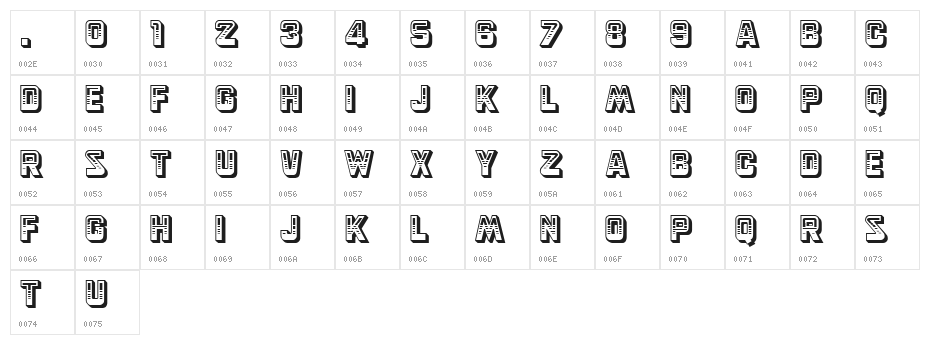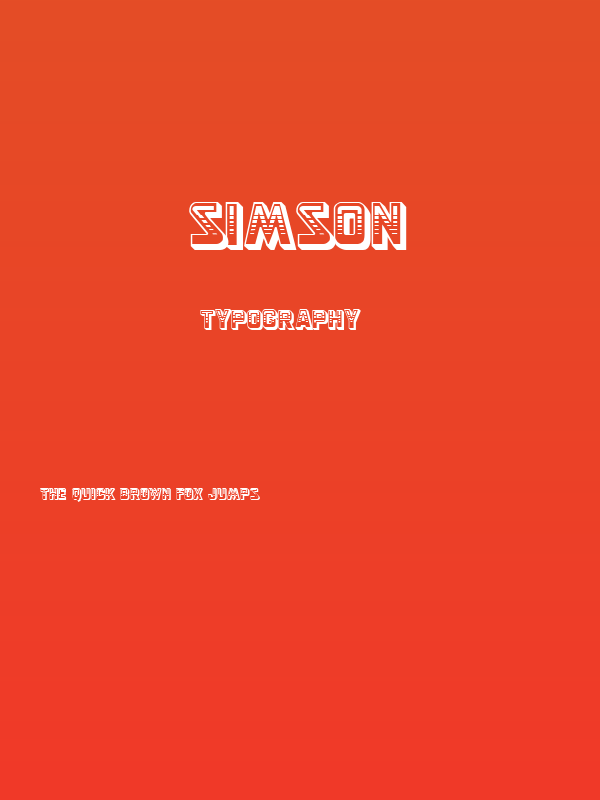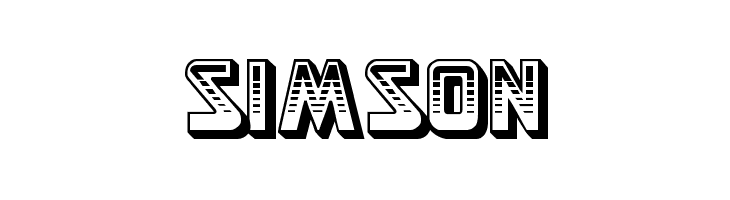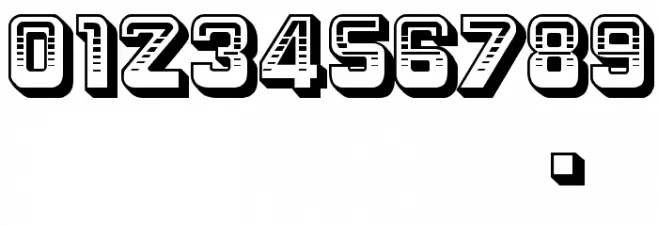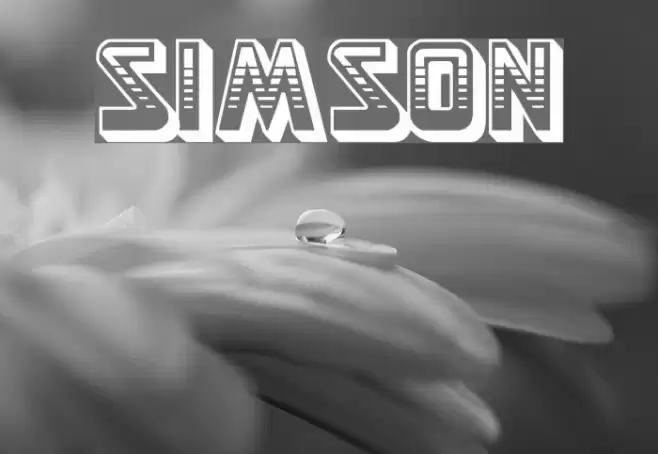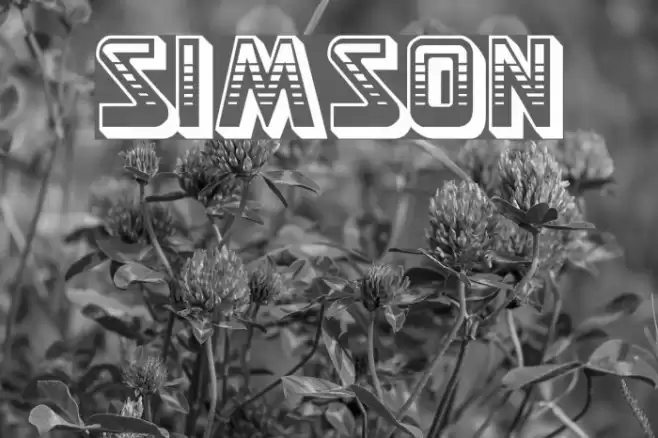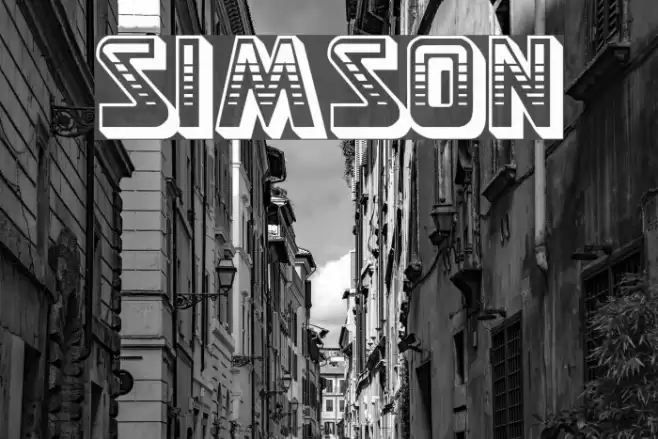
Simson Font
Simson Description
This font features a bold, three-dimensional design with a strong, impactful presence. The letters are uppercase and have a shadow effect that gives them depth and a sense of movement. The style is reminiscent of vintage signage or retro posters, making it ideal for projects that require a standout, eye-catching typeface. The characters are well-defined with a consistent stroke width, and the shadowing adds a playful yet structured element to the overall appearance. This font is perfect for creating a dynamic and energetic visual impact.
| Overall Style | Vintage |
| Proposed Projects | Ideal for posters, headlines, logos, and any design needing a retro or vintage flair. |